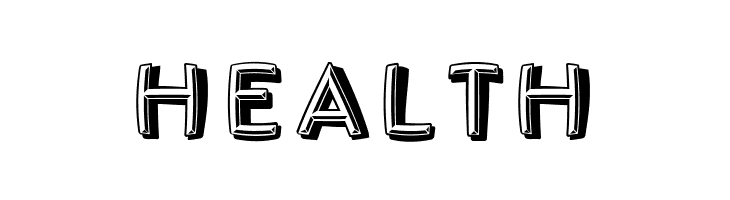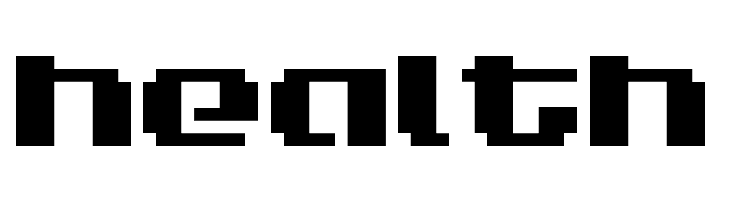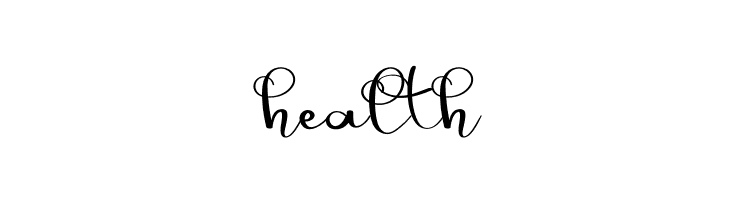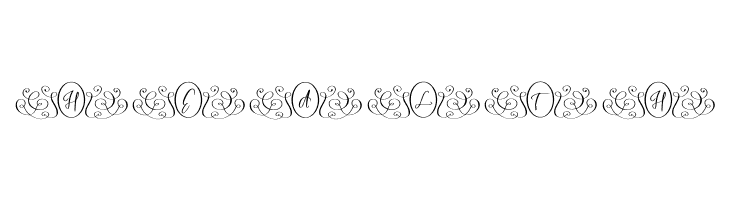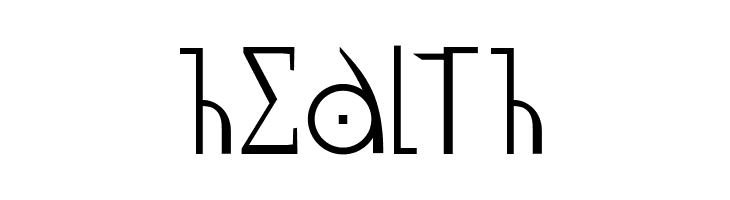
An elegant script font with flowing, cursive letterforms and intricate details.
A textured, hand-drawn font with a grunge and artistic style.
A bold, playful font with curvaceous and whimsical letterforms.
A bold, modern font with a strong, slightly condensed design.
An ornate and decorative font with intricate flourishes, ideal for luxurious designs.
A bold, three-dimensional font with a modern and decorative style.
An elegant script font with flowing, cursive letterforms and luxurious swirls.
A playful, handwritten font with smooth, flowing letterforms.